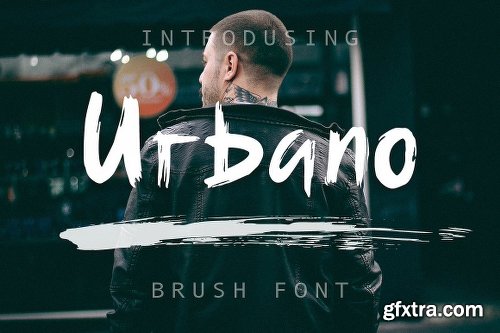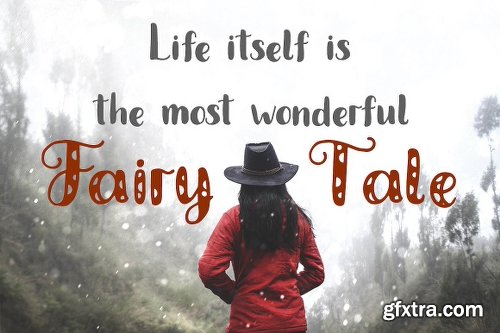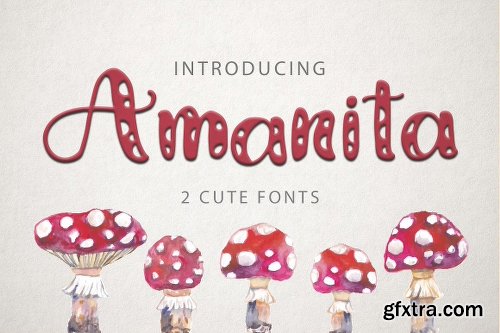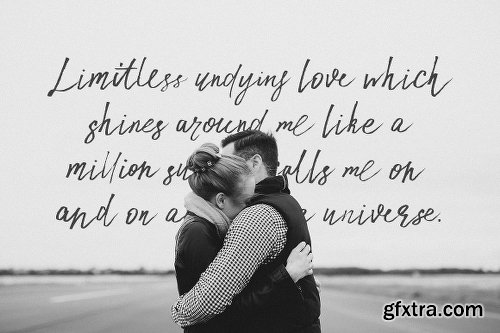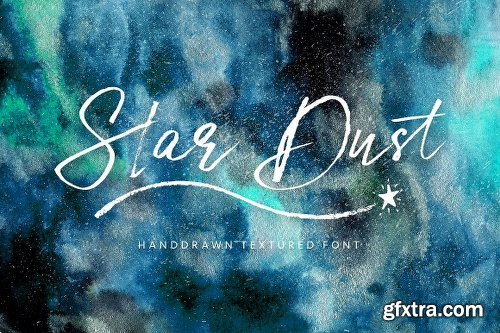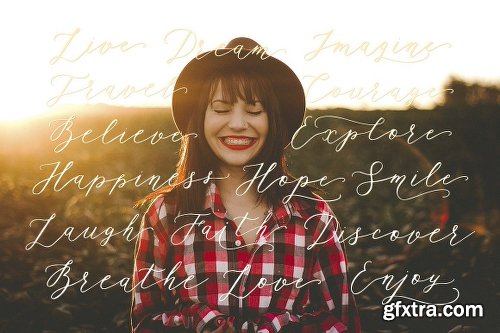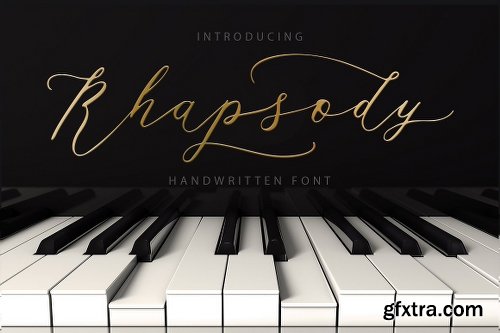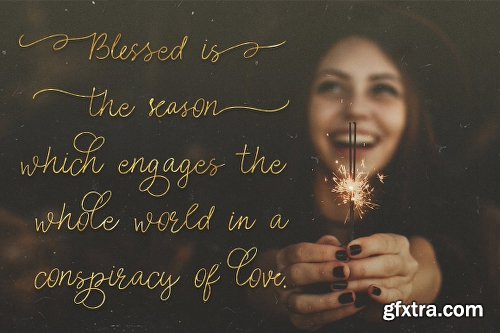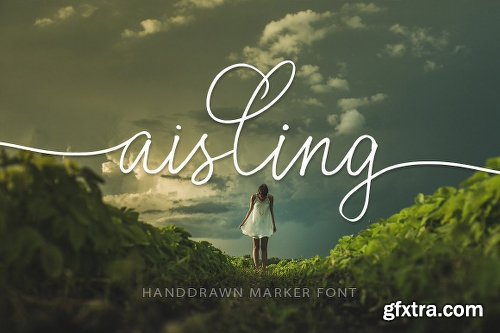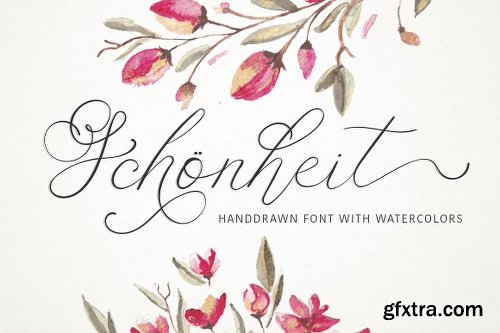
Here it is! The Christmas Font Bundle!!!
I've bundled up 10 of my beautiful Fonts in 6 typefaces + 32 watercolor elements just for you!
The perfect fonts in different styles can meet different requirements for any designs. Watercolor elements complement fonts and will help you to create unique modern logos, postcards, social media posts and branding projects in seconds.
• All typefaces include lots of OpenType features, which make these fonts unique tools for creating hand drawn texts.